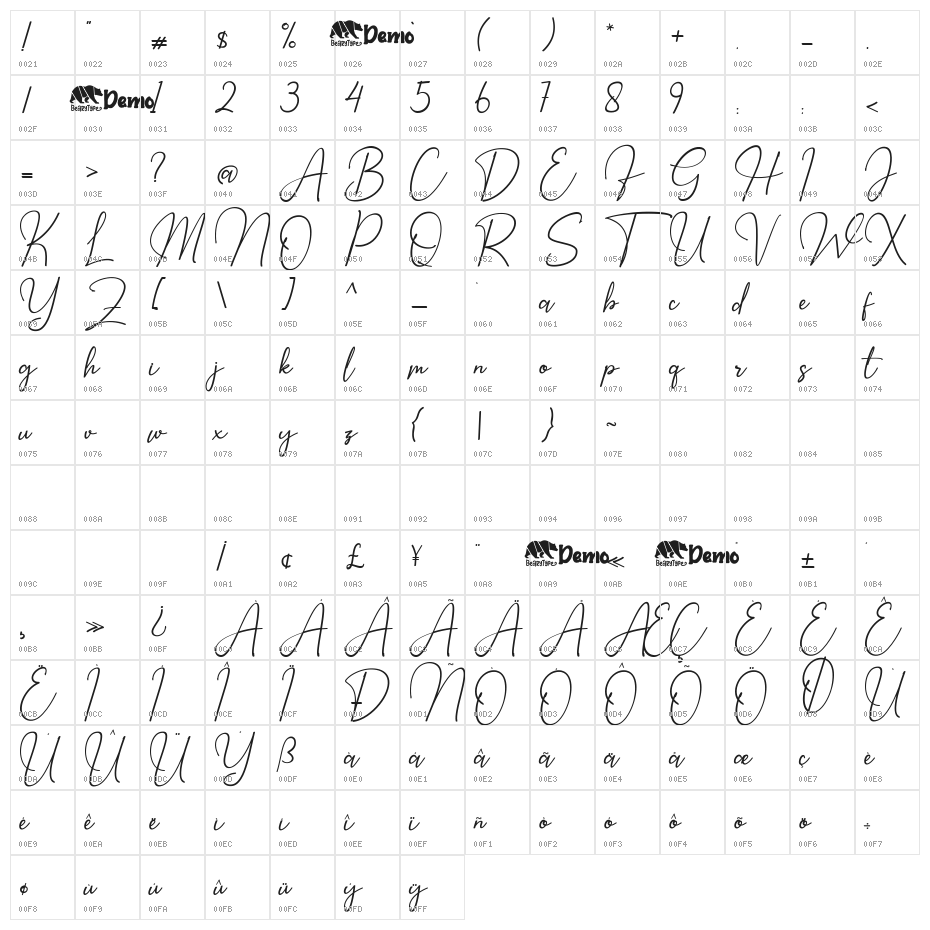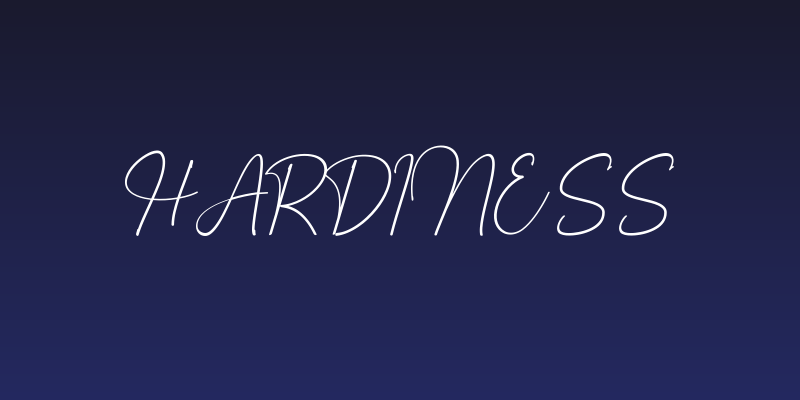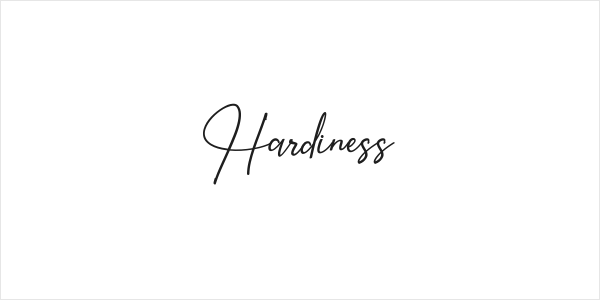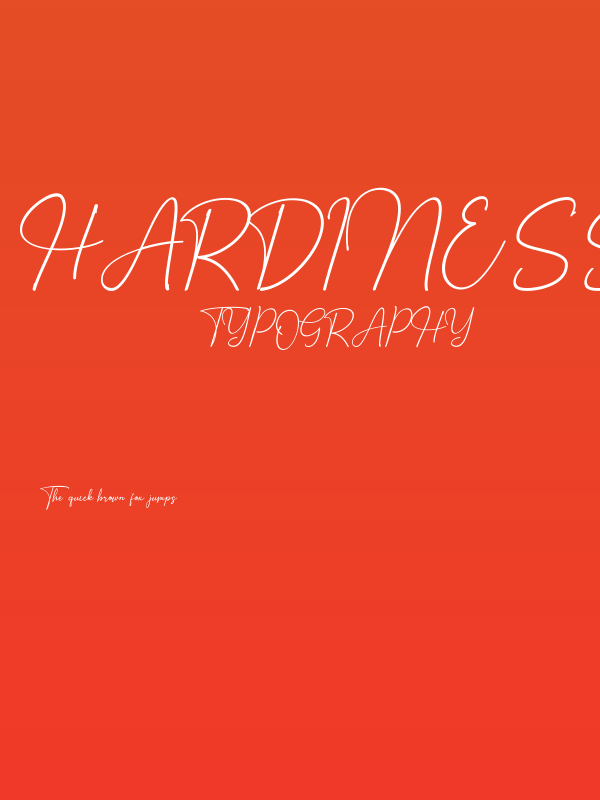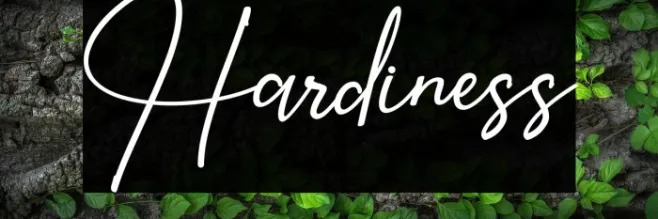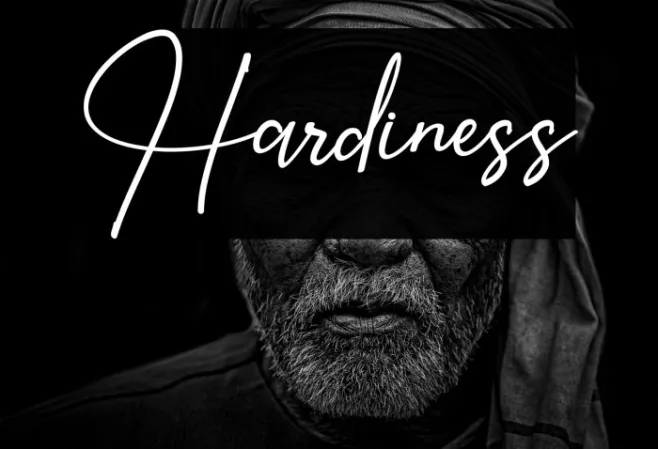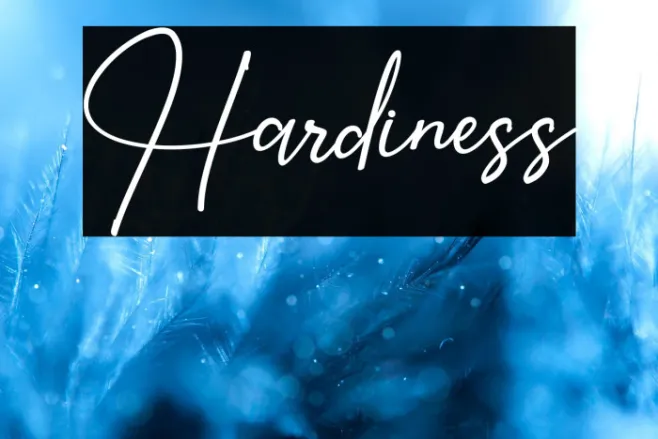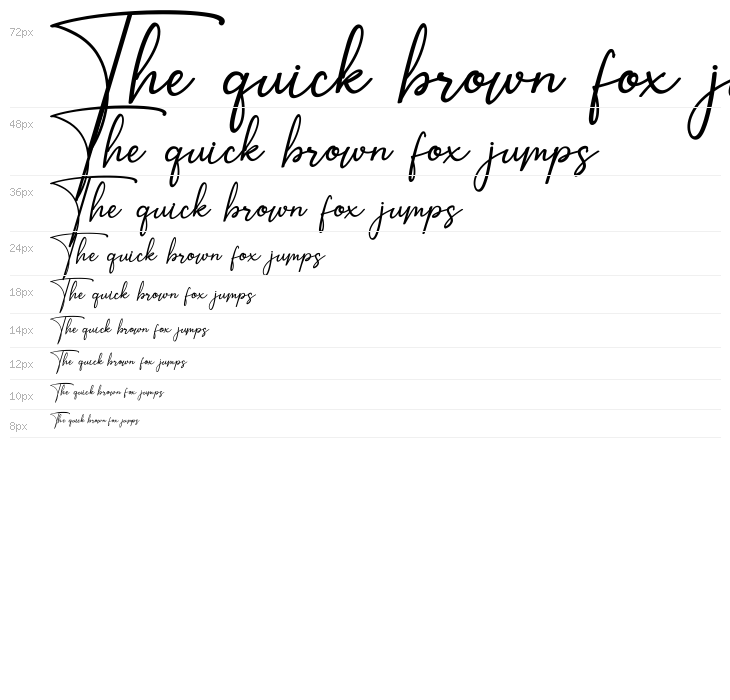
Hardiness Font
Hardiness Description
This font features a dynamic and flowing script style that exudes elegance and sophistication. The uppercase letters are tall and slender, with graceful curves and loops that give a sense of fluidity. The lowercase letters maintain a consistent style, with smooth connections and a slight slant that enhances the handwritten feel. Numbers are clear and legible, matching the overall aesthetic with their rounded forms. Special characters are thoughtfully designed, integrating seamlessly with the rest of the font. This font's versatility makes it suitable for a variety of applications, from formal invitations to branding materials.
| Overall Style | Elegant, Handwritten |
| Proposed Projects | Ideal for wedding invitations, branding, logos, and elegant stationery. |